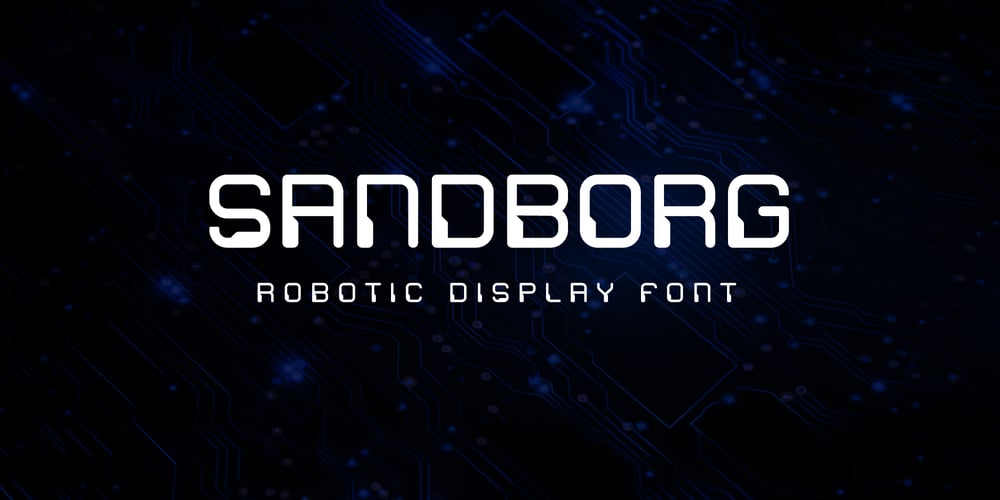
Sandborg Font Family was designed by Agustian Eko Saputro, Aprilia Nurina Putri and published by Mightyfire. Sandborg contains 1 styles and family package options. Looking for a font which has a modern futuristic looks? Yes, you come to the right place.We have Sandborg to cover your needs.The characteristic of Sanborg is the digital looks of each letter. If you want to write a headline or title about technology or digital content, we suggest you to try this font.We’re honored and proud if we can be the part of your special works.Thank you.